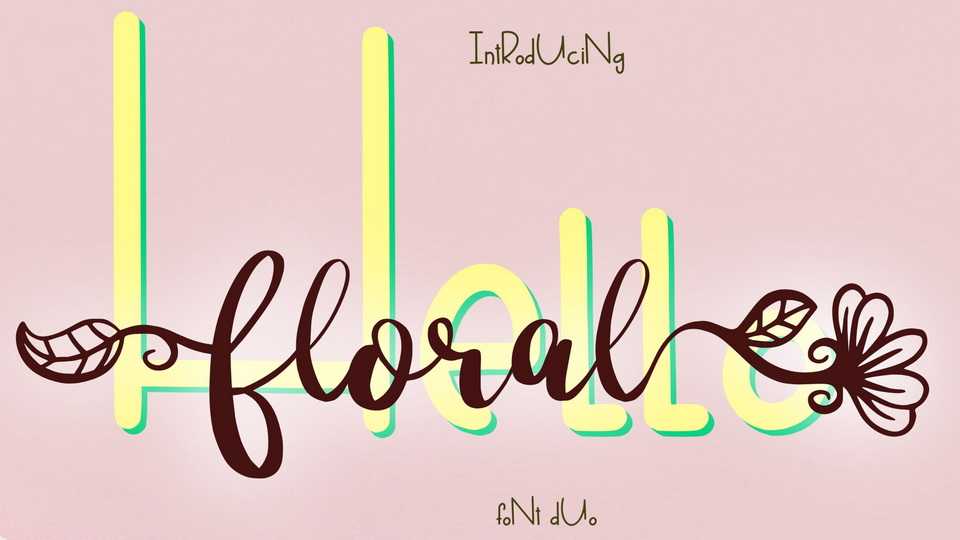
Download Hello Floral font, a handwritten typeface created with brush and ink. Hello Floral is ideal for use in bold watercolor designs or handwritten styles, such as blog titles, posters, wedding elements, t-shirts, clothing and more.